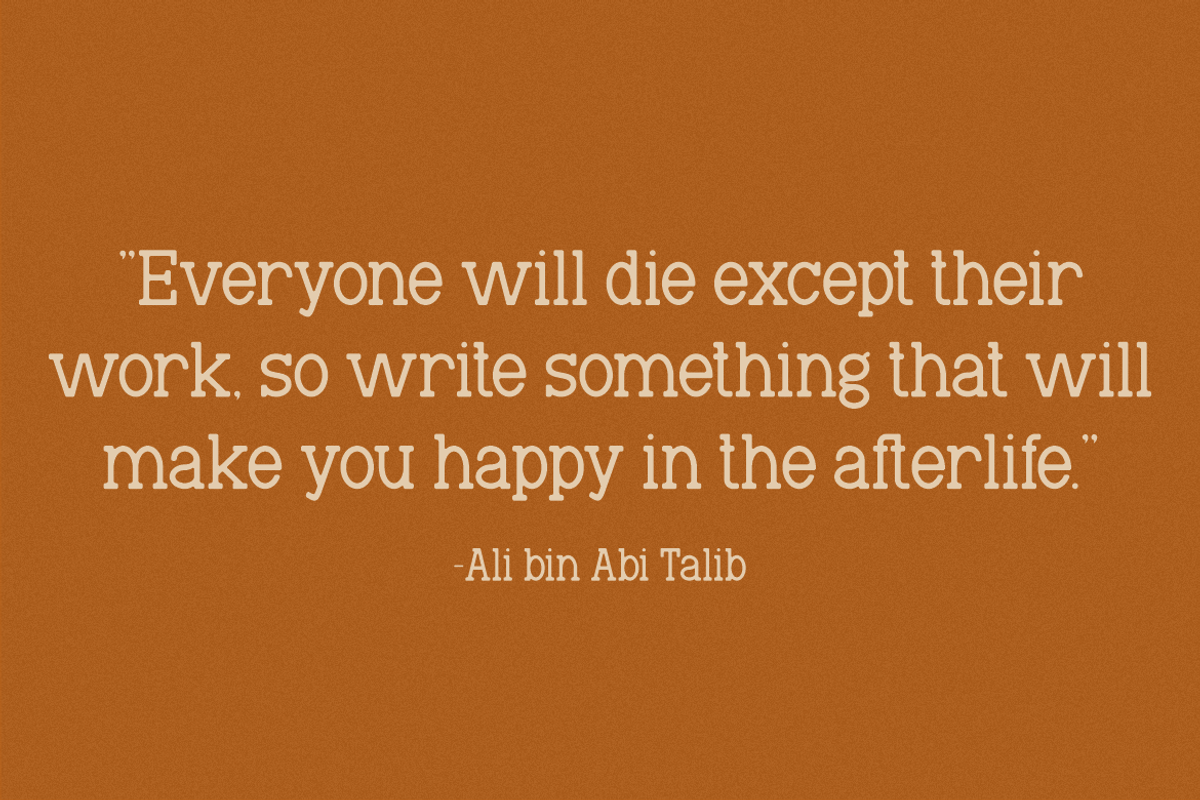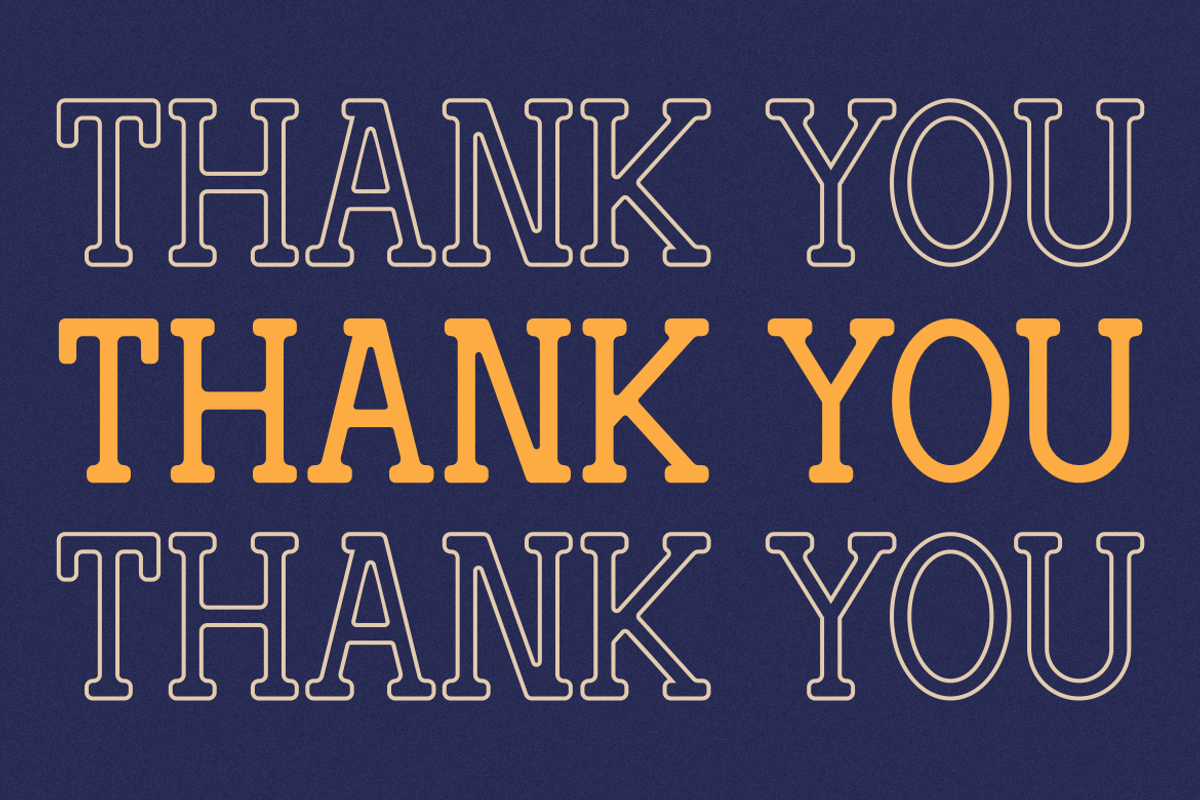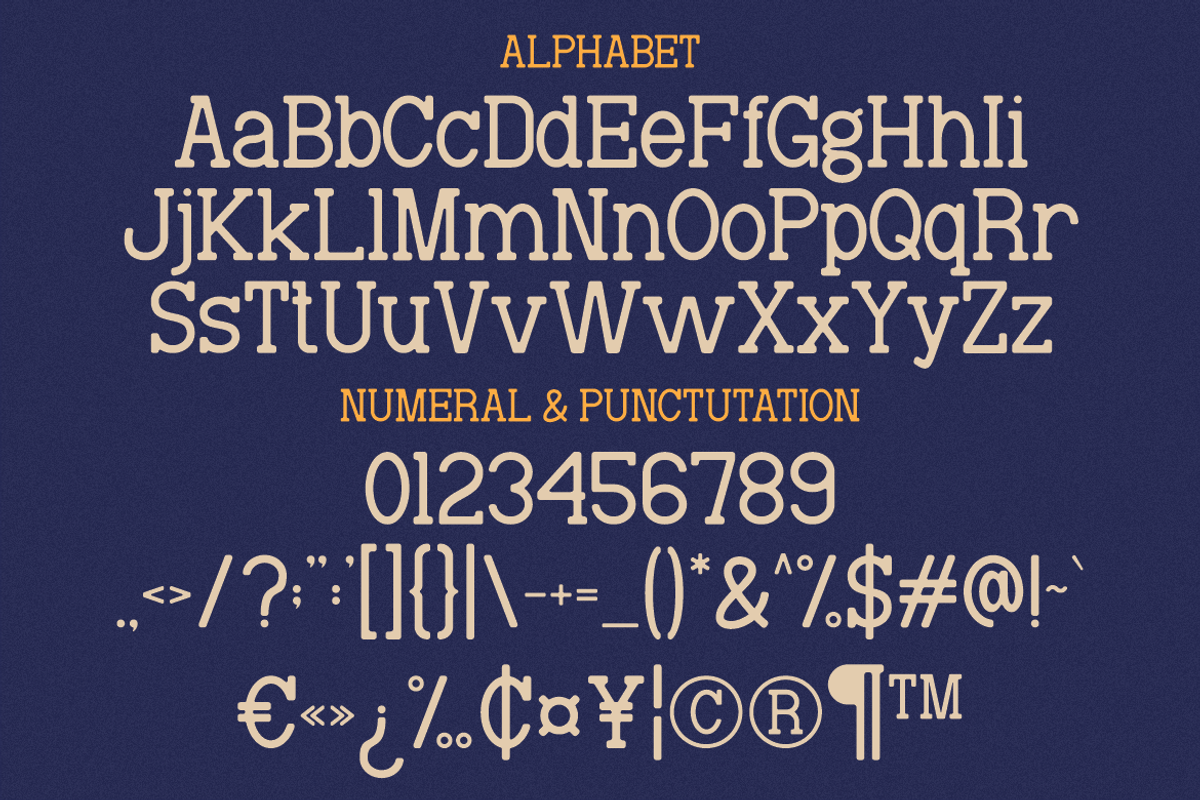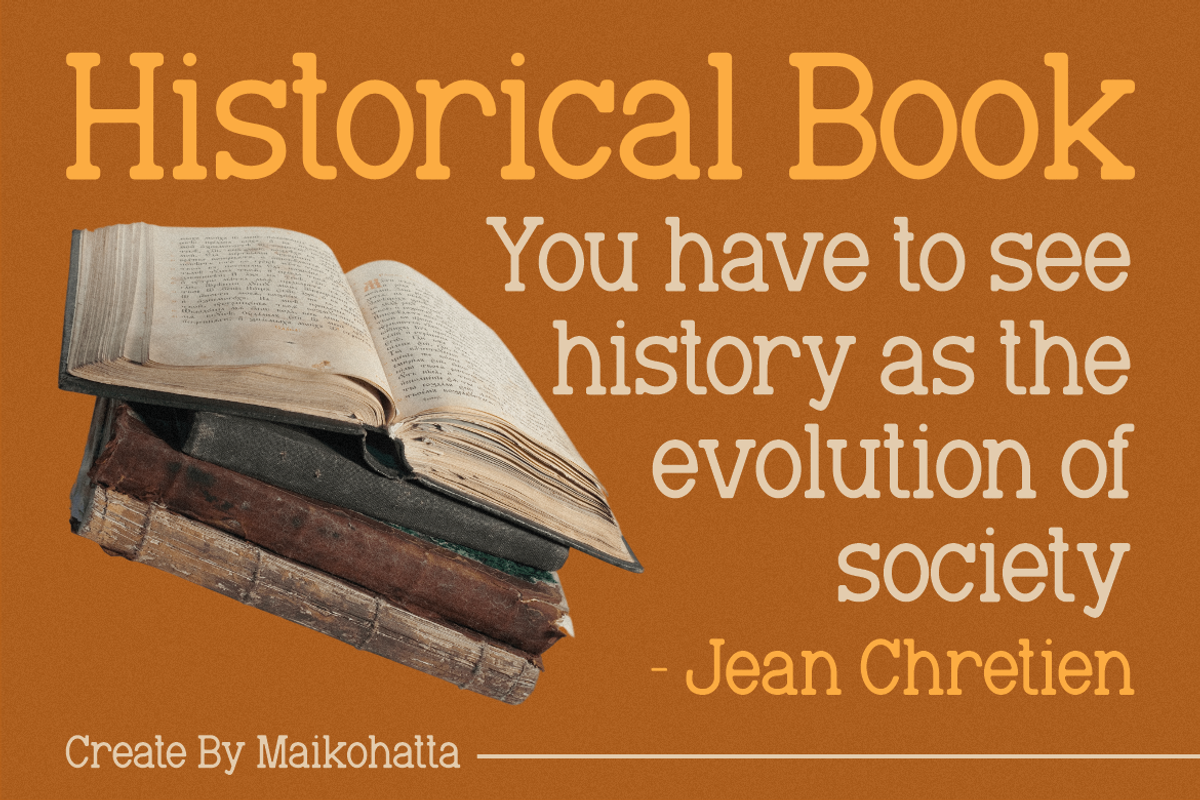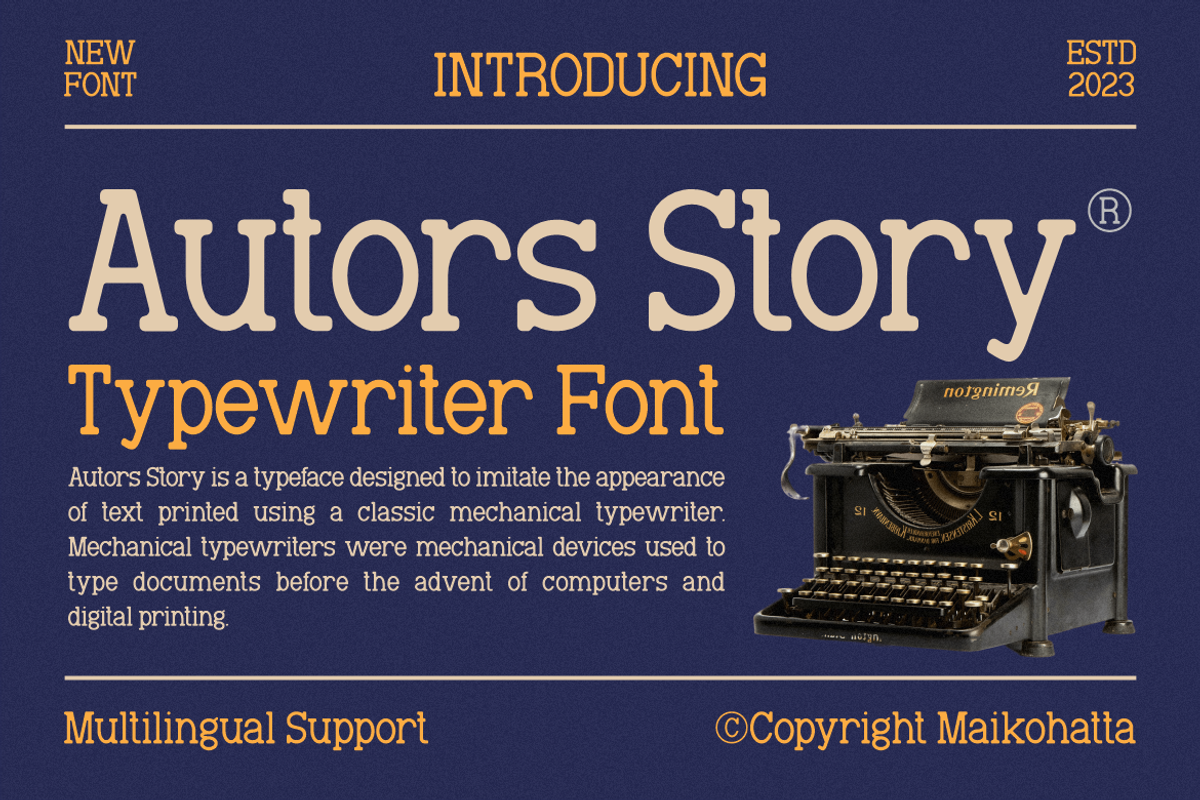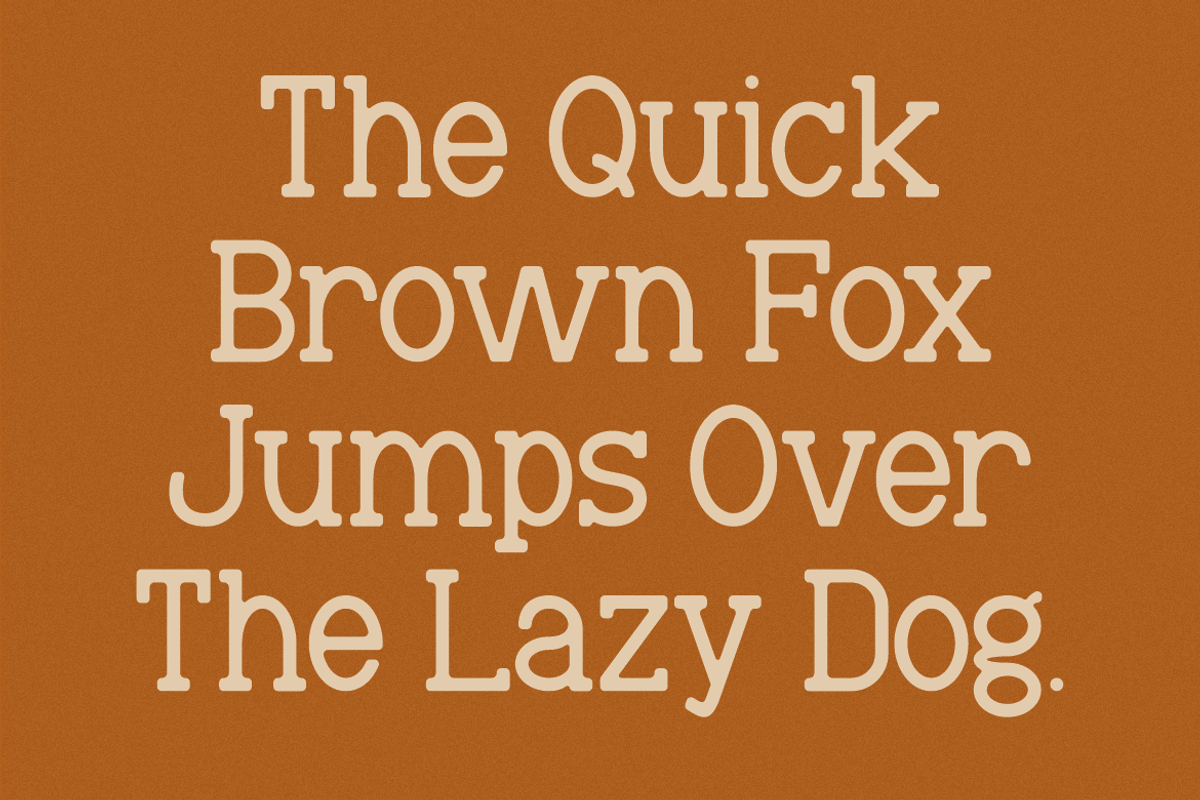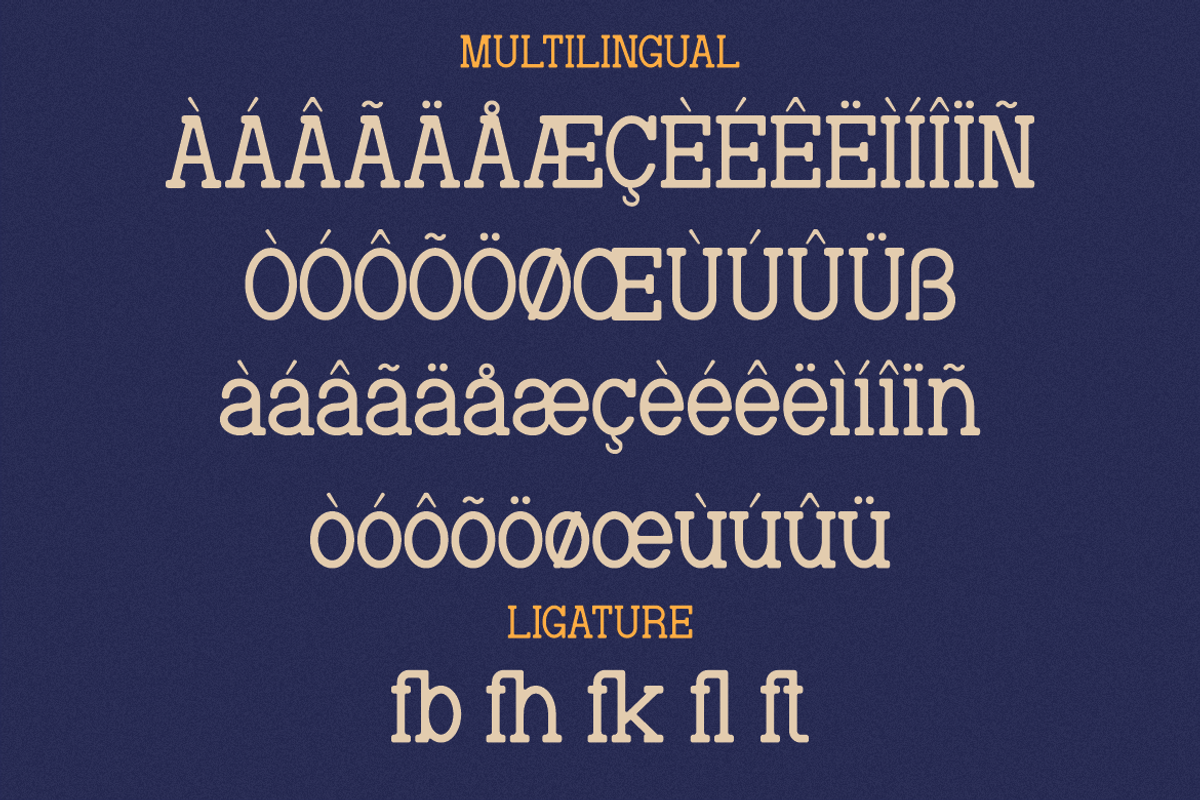
Autors Story - Typewriter Font
Autors Story – Typewriter Font Autors Story is a nostalgic typewriter-inspired font that captures the authentic look of classic mechanical typewriters. Designed to replicate the imperfect, organic feel of traditional typed text, this font brings a retro charm and vintage aesthetic to your projects. Perfect for book covers, editorials, stationery, posters, branding, and digital art, Autors Story evokes the timeless spirit of storytelling and analog writing. With multilingual support, it’s versatile for both personal and commercial creative work, making it an excellent choice for designers seeking a balance between authenticity and readability.